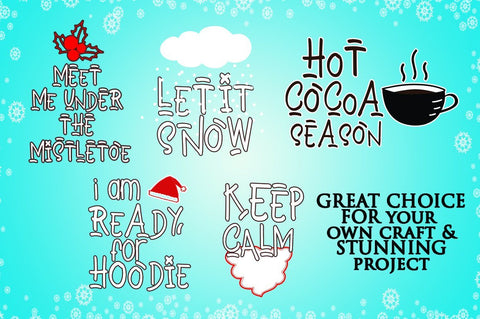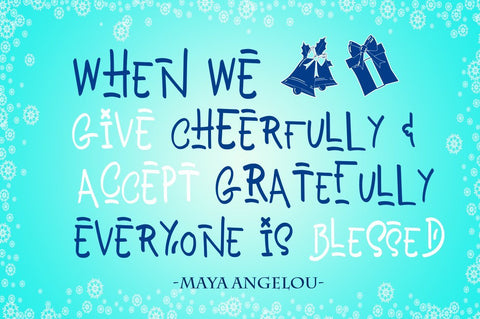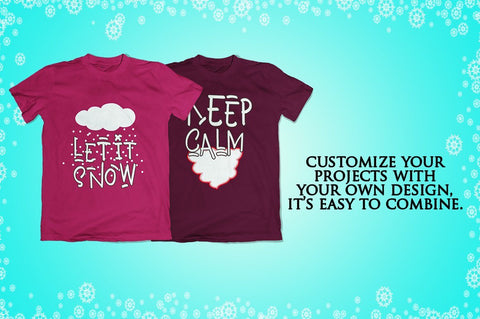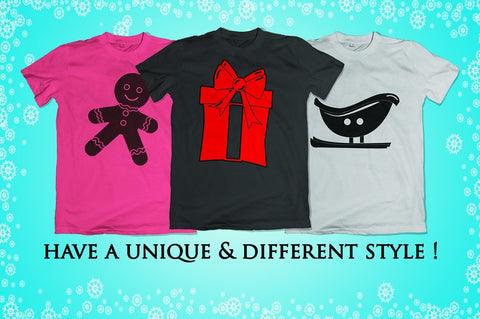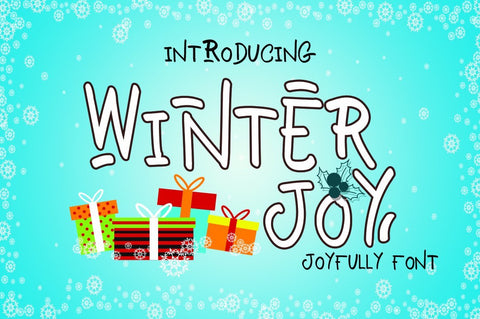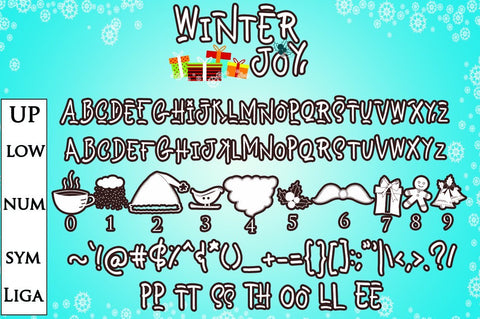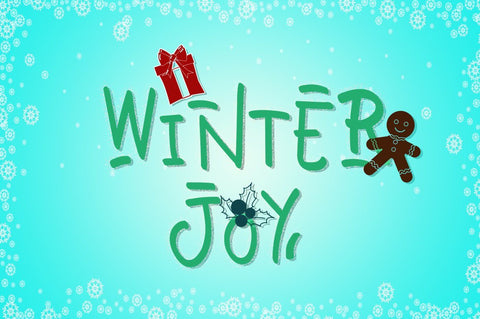
Winter Joy - Joyfully Font
WINTER JOY is a cute, handwritten holiday-season font. This is a great choice for quotes, headings, logos, printings, social media posts and more!
It has all in caps and set to lowercase for another style, also you can get FREE hand drawn doodles by typing 0-9. It doesn't need any special software!
Font features:
- Standard characters (A-Z), symbols
- 10 Hand drawn doodles (0-9)
- Ligatures ( pp , tt, ss, th, oo, ll, ee )